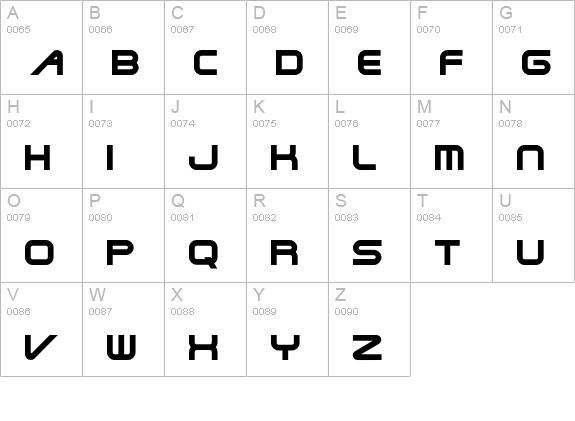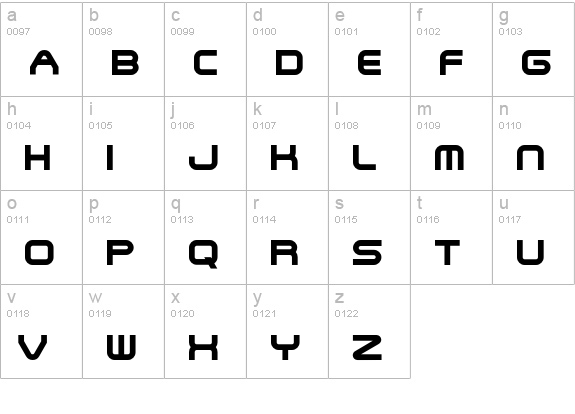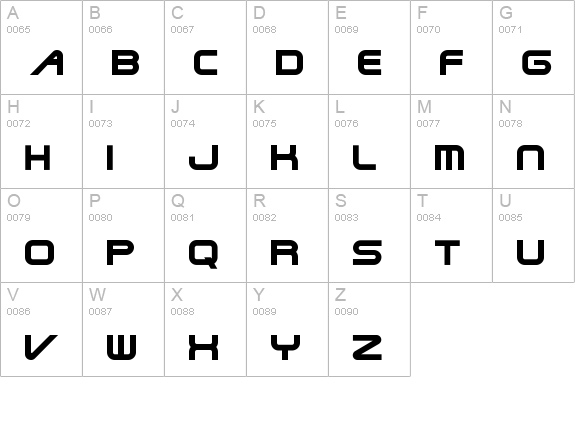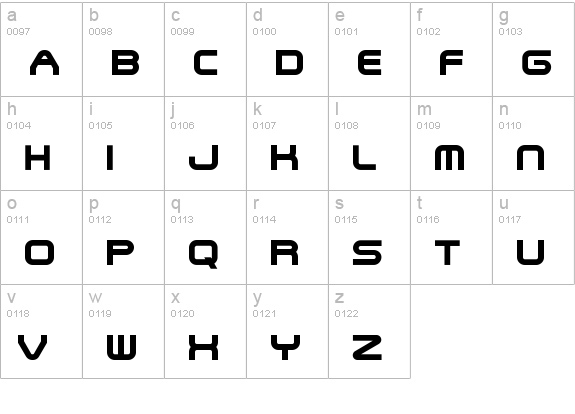
SteelWolf-Medium Font Details
SteelWolf-Medium is a balanced, medium-weight variant in the SteelWolf typeface family \xE2\x80\x94 well suited to sub-headlines, navigation, and balanced editorial work.
Introducing SteelWolf-Medium font, a sleek and modern typeface that exudes strength and confidence. This versatile font is perfect for a wide range of design projects, from logos and branding to headlines and body text. The SteelWolf-Medium font strikes the perfect balance between elegance and power, with its clean lines and sturdy letterforms. Its medium weight adds a touch of sophistication, making it suitable for both professional and creative endeavors. With its carefully crafted design, SteelWolf-Medium font offers excellent legibility at any size, ensuring that your message is effectively communicated to your audience. Whether you're designing a website, creating marketing materials, or crafting a presentation, this font will make your content stand out with its bold and commanding presence. One of the best features of SteelWolf-Medium font is that it is freely available to download at FontsMarket.com. This means that you can easily access this impressive typeface without any cost, making it a valuable asset for both personal and commercial projects. Say goodbye to restrictive licensing fees and hello to creative freedom! So why wait? Embrace the power and elegance of SteelWolf-Medium font and elevate your designs to new heights. Download it for free at FontsMarket.com today and experience the seamless blending of style and strength in your typographic creations.